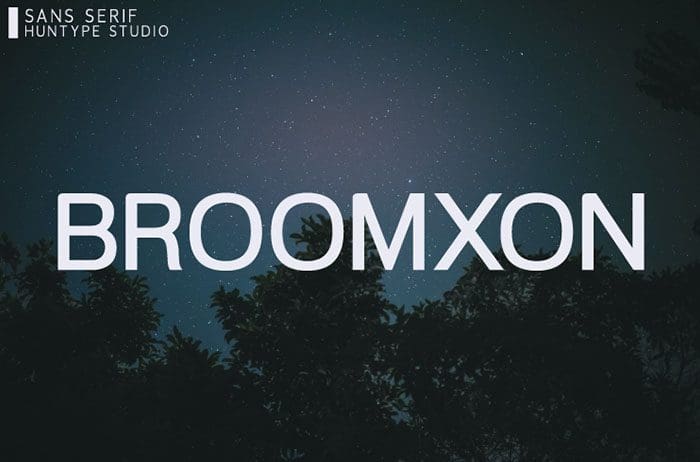
Broomxon Sans Serif Font
Broomxon is a modern and powerful sans serif font. Broomxon will look outstanding in any context, whether it’s being used on busy backgrounds or as a standalone headline! Thanks to Mas Anis for sharing this awesome font! Take a look on this portfolio for more of his stunning fonts.